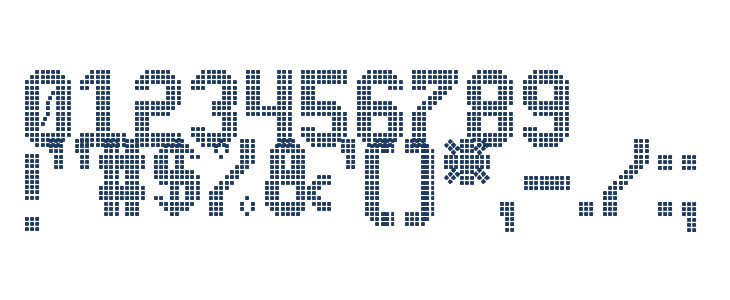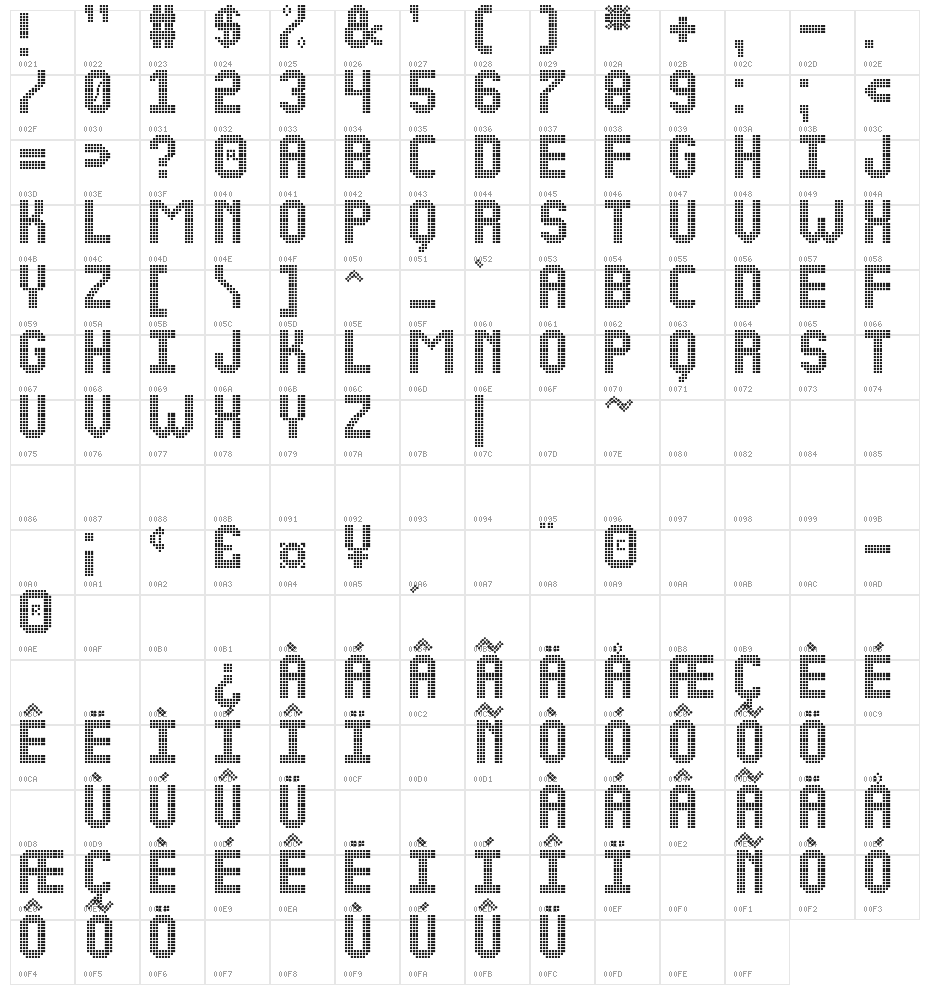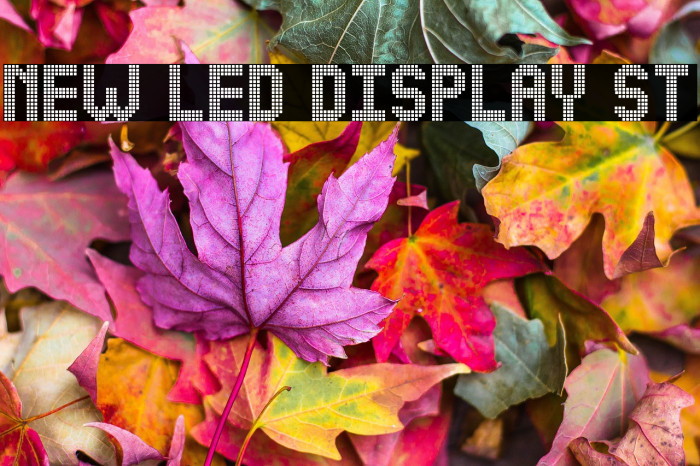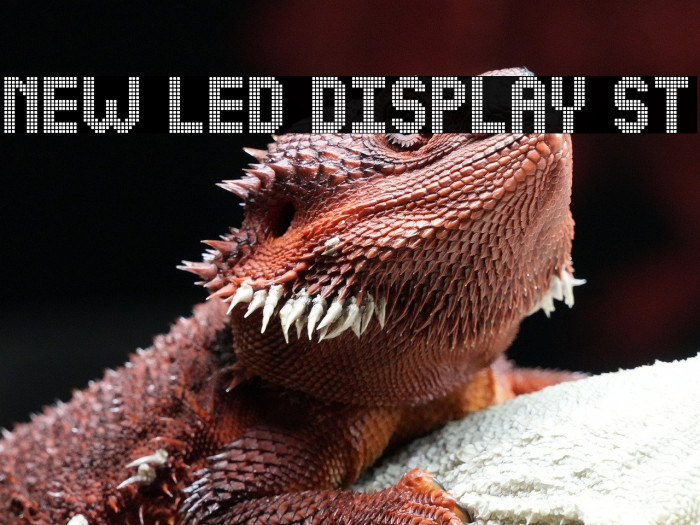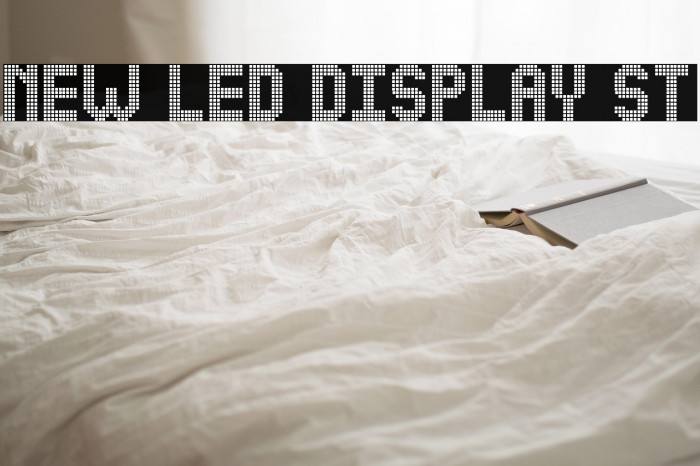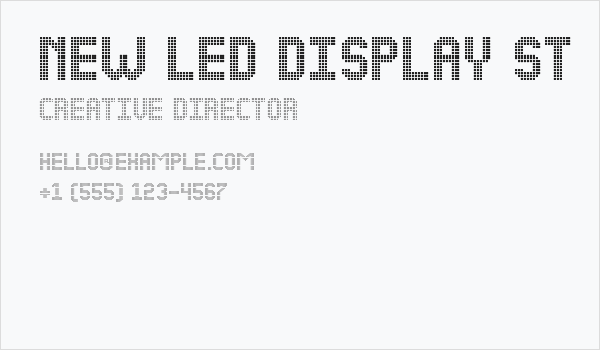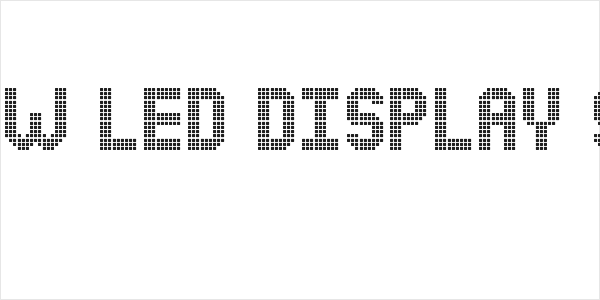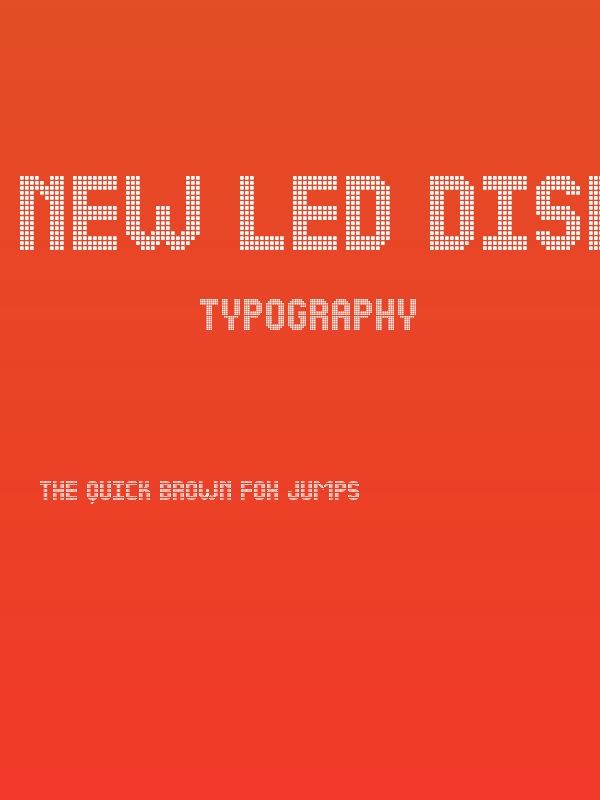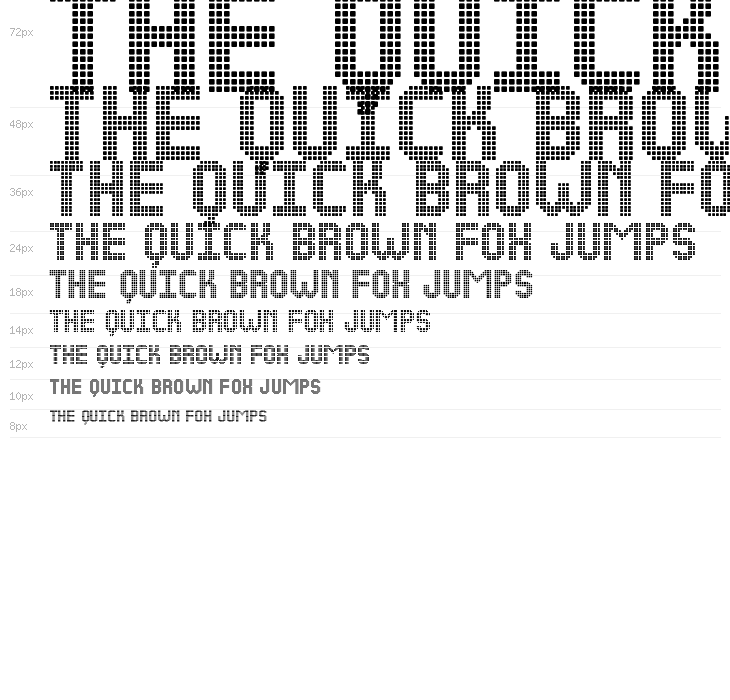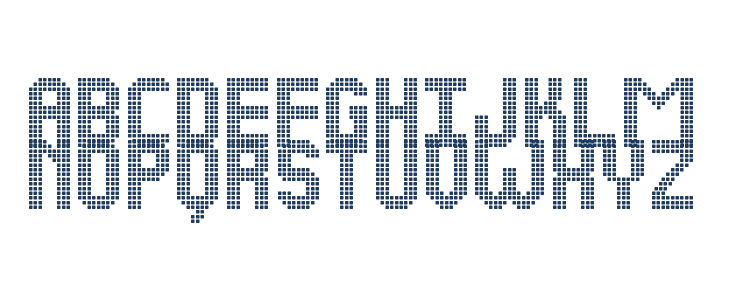
NEW LED DISPLAY ST Font
NEW LED DISPLAY ST Description
This font features a distinctive dot matrix style, reminiscent of classic LED displays. Each character is composed of a grid of small, evenly spaced dots, creating a pixelated effect that is both retro and modern. The uppercase and lowercase letters maintain a consistent height and width, ensuring uniformity across the typeface. Numbers and special characters are designed with the same dot matrix pattern, providing a cohesive look. This font is ideal for digital displays, tech-themed projects, and any design that requires a futuristic or electronic aesthetic. The overall appearance is clean and structured, with a geometric precision that enhances readability.
| Use Case | Headlines, Logos, Digital displays |
| Proposed Projects | Ideal for digital displays, tech-themed designs, electronic signage, and futuristic branding. |